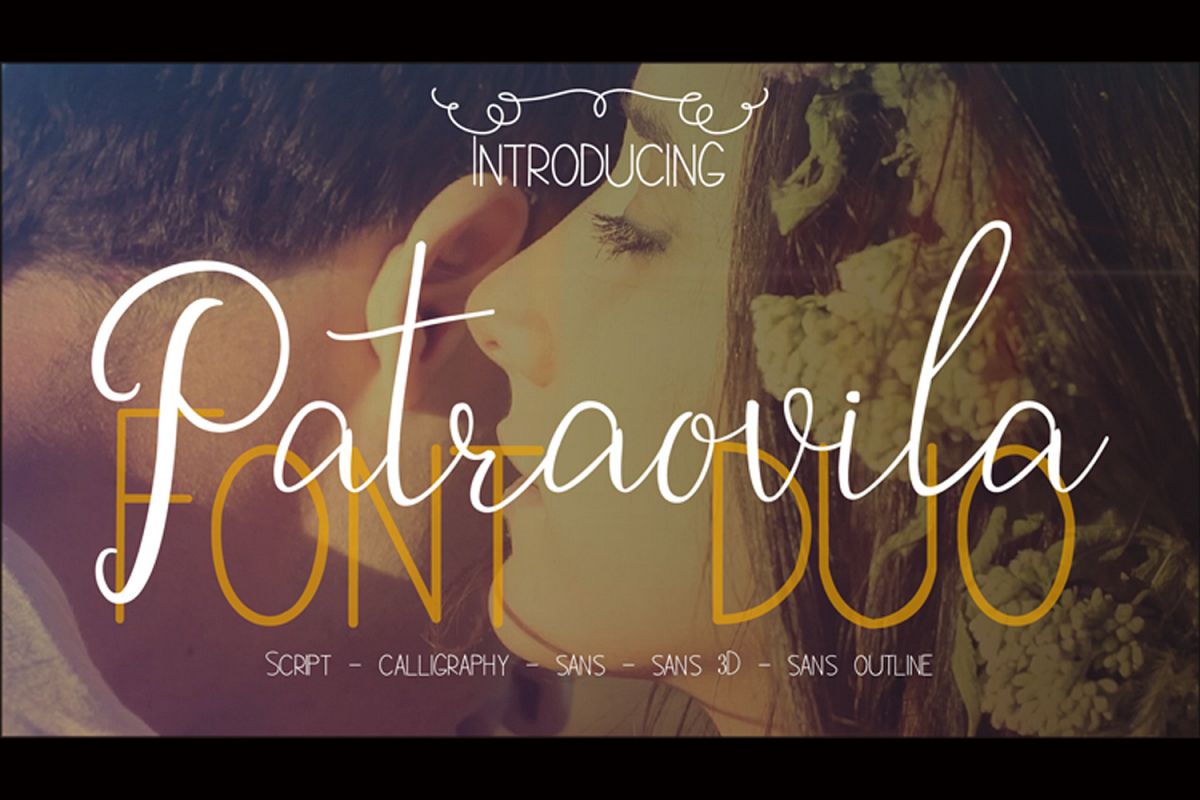
Patraovila font Duo
Patraovila Duo font is a unique, cool and modern handwritten font. It's the look style makes it perfect for all your design projects, be it logos, signatures, labels, packaging designs, blog headlines.
and there are 4 different font types, script, sans, 3D and Outline
and also supports many languages equipped with various ligature
Patraovila Script
Patraovila sans
Patraovila 3D
Patraovila Outline